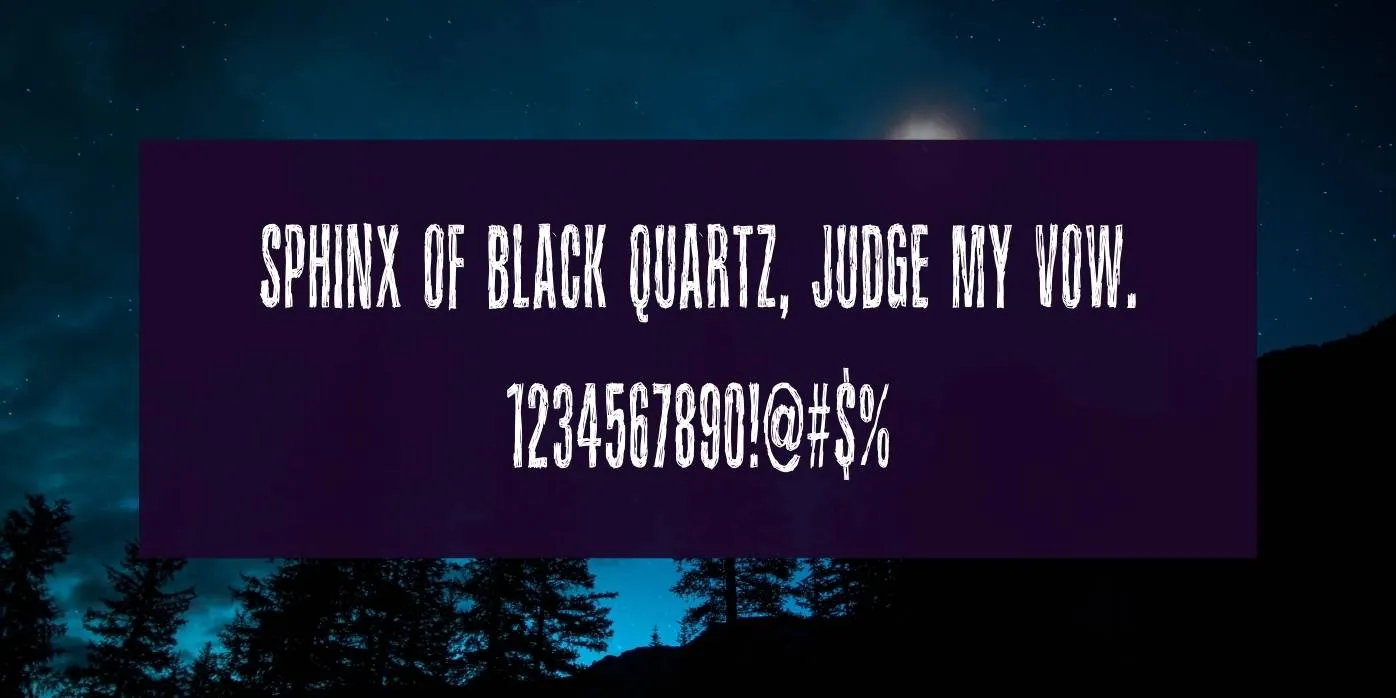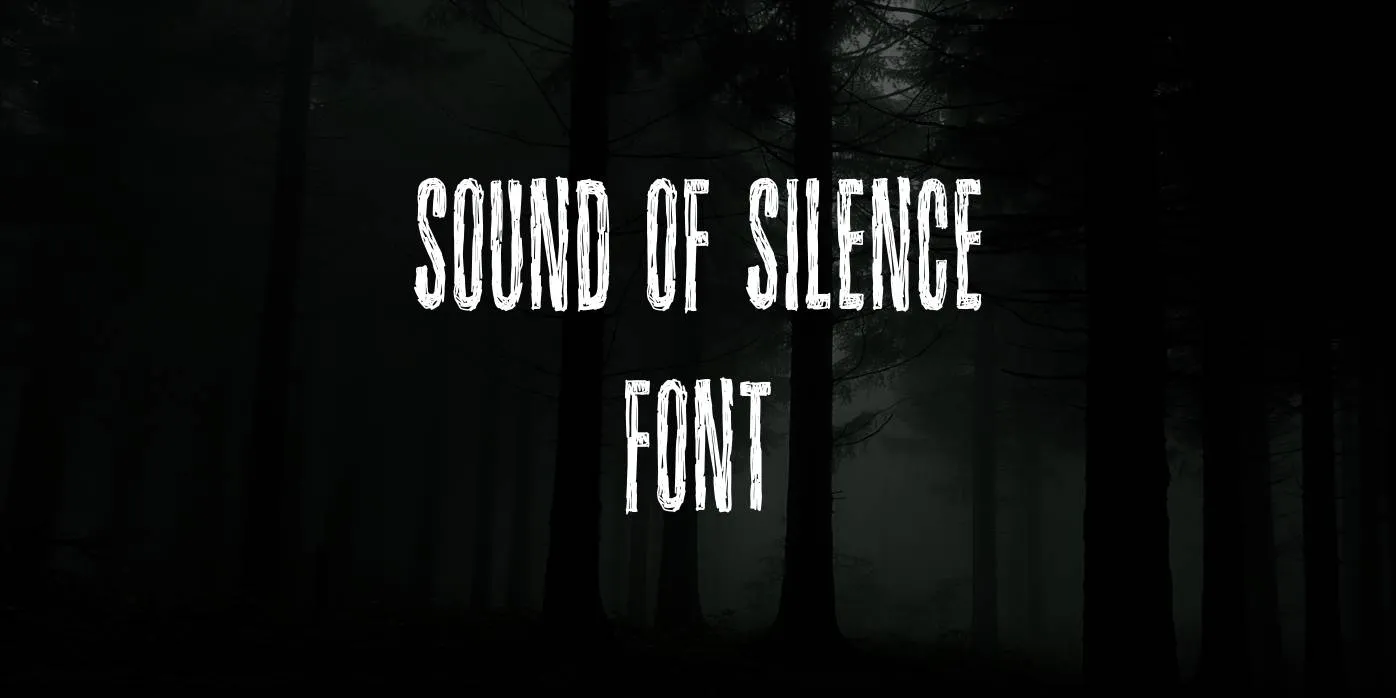
Sound of Silence Font
Sound of Silence Font is a beautiful, unique fancy font that was created by graphic designer Måns Grebäck. The font is inspired by the silence that can be found in nature, and it has a calming and serene quality to it. The font is perfect for creating elegant and stylish designs, and it can be used for both personal and commercial projects. Sound of Silence Typeface is available in both TTF and OTF formats, and it includes all the necessary characters and symbols.